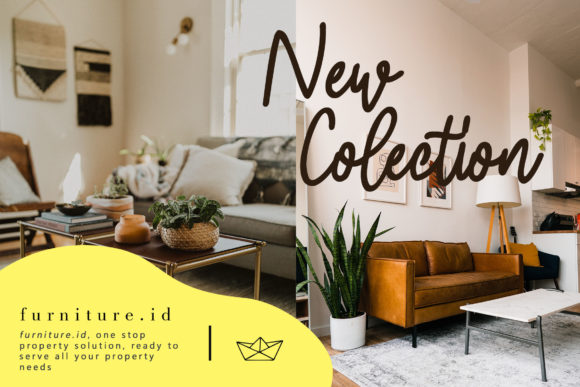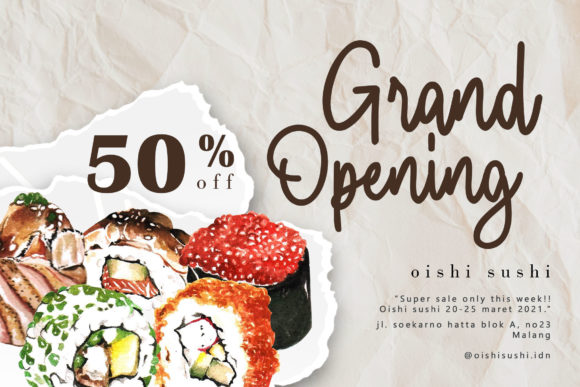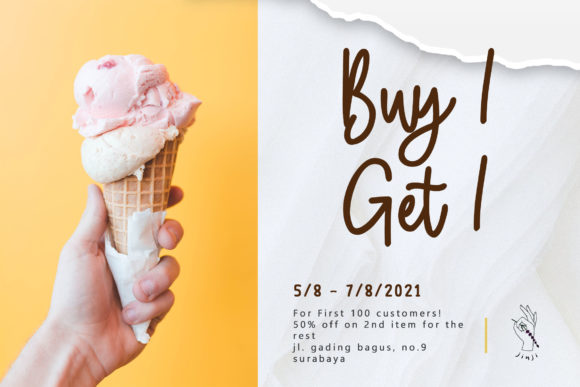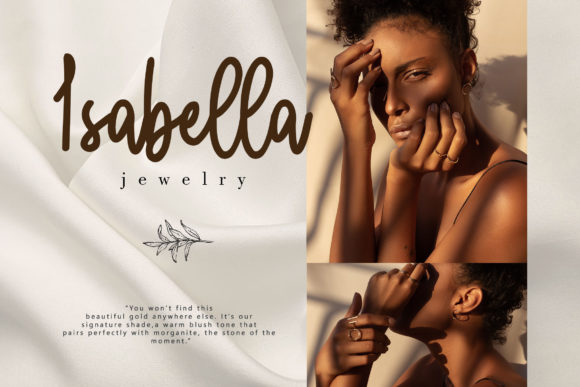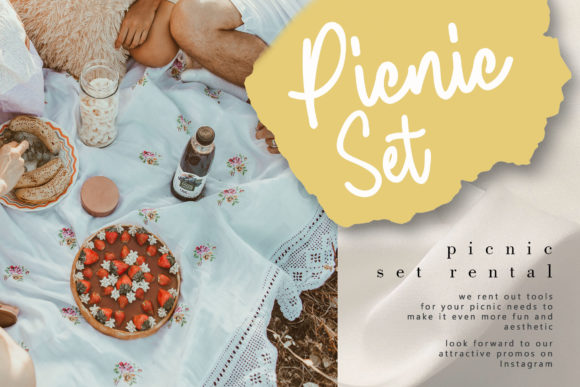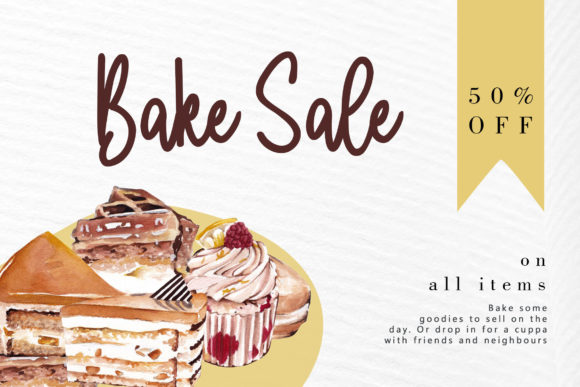
Garden Mosaic Font: Elevate Your Designs with a Touch of Nature
In the world of typography, few fonts capture the essence of nature as beautifully as the Garden Mosaic font. This natural and dainty script font is a gem for designers and crafters looking to add a touch of elegance and whimsy to their creations. With its neat craftsmanship and high level of detail, Garden Mosaic is poised to become a cherished asset in any font library.
The Charm of Garden Mosaic
Garden Mosaic is more than just a font; it’s an experience. Imagine the delicate petals of a flower, the intricate patterns of a butterfly’s wings, or the soft, flowing lines of a vine. This font embodies the serenity and beauty of a garden, bringing a sense of peace and harmony to any design. Whether you’re working on a project for a client or creating something for personal enjoyment, Garden Mosaic adds a unique and captivating element that can transform your work.
One of the standout features of Garden Mosaic is its versatility. This font isn’t limited to a specific theme or project type. Whether you’re designing wedding invitations, crafting a logo for a gardening business, or creating art for a children’s book, Garden Mosaic adapts seamlessly. Its elegant and detailed nature makes it suitable for a wide range of applications, from digital media to print materials.
Crafting with Precision and Beauty
The creators of Garden Mosaic have paid meticulous attention to detail, ensuring that every letterform is not only aesthetically pleasing but also highly legible. This balance is crucial for designers, as it allows for creative freedom without compromising on clarity. The font’s neat craftsmanship means that it can be used in both large and small sizes, making it perfect for headlines, body text, and everything in between.
Enhancing Your Creations
So, how can Garden Mosaic enhance your creations? Here are a few ways:
- Adding a Personal Touch: For crafters and small business owners, personalization is key. Garden Mosaic’s unique charm can help your products or communications stand out, giving them a handmade or bespoke feel.
- Elevating Brand Identity: For businesses, a well-chosen font can significantly impact brand perception. Garden Mosaic’s elegance and sophistication make it an excellent choice for brands looking to convey a sense of luxury, nature, or creativity.
- Inspiring Creativity: Sometimes, all it takes is a new font to spark creativity. Garden Mosaic’s beauty and detail can inspire designers to experiment with new layouts, color schemes, and design elements.
Why Garden Mosaic Stands Out
In a sea of fonts, Garden Mosaic stands out for several reasons:
- Uniqueness: Its natural and dainty script style is not easily found in other fonts, making it a unique addition to any project.
- Quality: The high level of detail and craftsmanship that has gone into creating Garden Mosaic is evident in its smooth lines and elegant curves.
- Versatility: As mentioned earlier, its adaptability to various project types and themes makes it a valuable resource for designers.
Garden Mosaic is more than just a font; it’s a design asset that can elevate your projects with its natural beauty and detailed craftsmanship. Whether you’re a professional designer or a crafter, this font offers a world of creative possibilities. By incorporating Garden Mosaic into your font library, you’re not just adding a script font; you’re opening the door to a new level of design elegance and creativity. So, why settle for ordinary when you can add a touch of nature’s beauty to your work? Explore the possibilities with Garden Mosaic and watch your designs bloom.